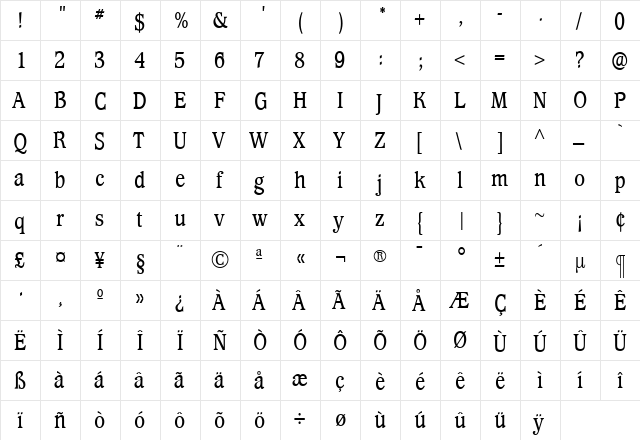
WaverlyMediumCondensed Roman
Design Context for WaverlyMediumCondensed Typeface
WaverlyMediumCondensed offers clean, dependable letterforms without strong stylistic allegiance, making it a practical choice for designers who need flexibility. The condensed width makes it efficient for tight spaces without sacrificing legibility.